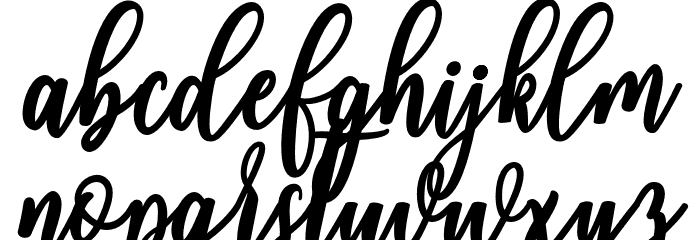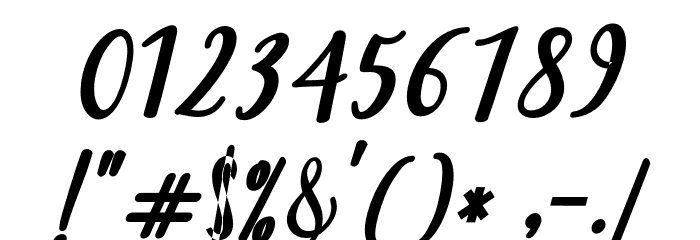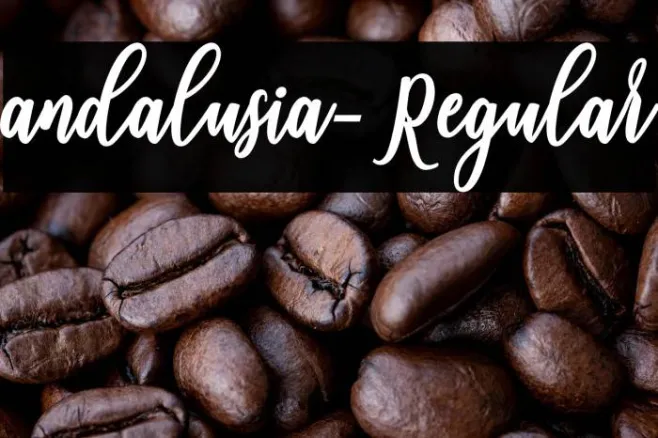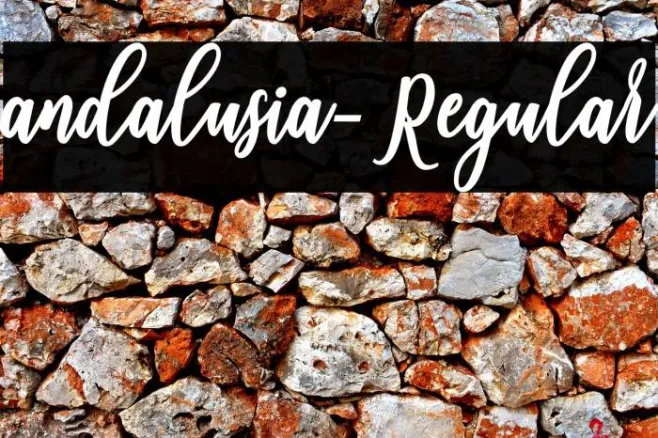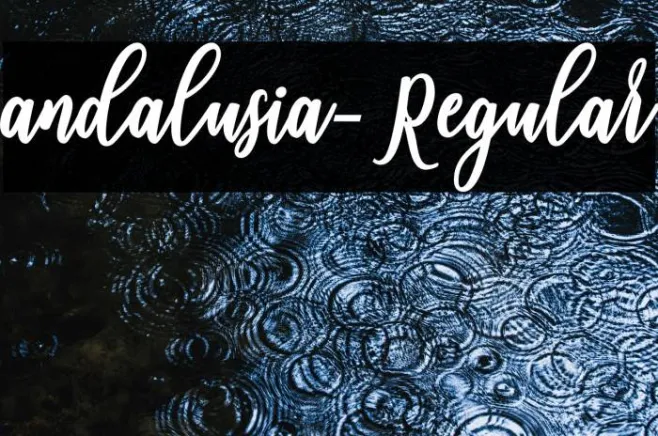
andalusia-Regular Font
This font features a flowing, cursive style with elegant, sweeping strokes that give it a handwritten appearance. The uppercase letters are bold and slightly slanted, while the lowercase letters maintain a consistent, fluid motion. The numerals are designed to match the overall script style, providing a cohesive look. Special characters are included, maintaining the same stylistic elements. The font exudes a sense of sophistication and creativity, making it suitable for projects that require a personal touch.
A cursive, handwritten-style font with elegant, flowing strokes.
- Proposed Projects: Ideal for wedding invitations, greeting cards, branding, and logo design.
- Use Case: Logos, Invitations, Decorative text